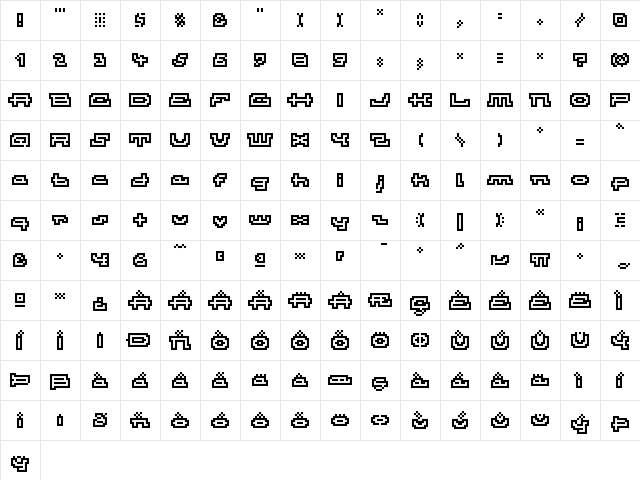
AtomicOutline Medium
Design Context for AtomicOutline Typeface
AtomicOutline brings ornamental detail and strong personality to headlines and identities, where visual impact matters more than quiet functionality.
Font Pairing: Pair with a clean neutral sans-serif for body copy to let AtomicOutline's character lead without overwhelming the composition.
Pro Tip: Use AtomicOutline exclusively at display sizes — it was designed to be seen, not read at length. Let a neutral companion handle body copy.